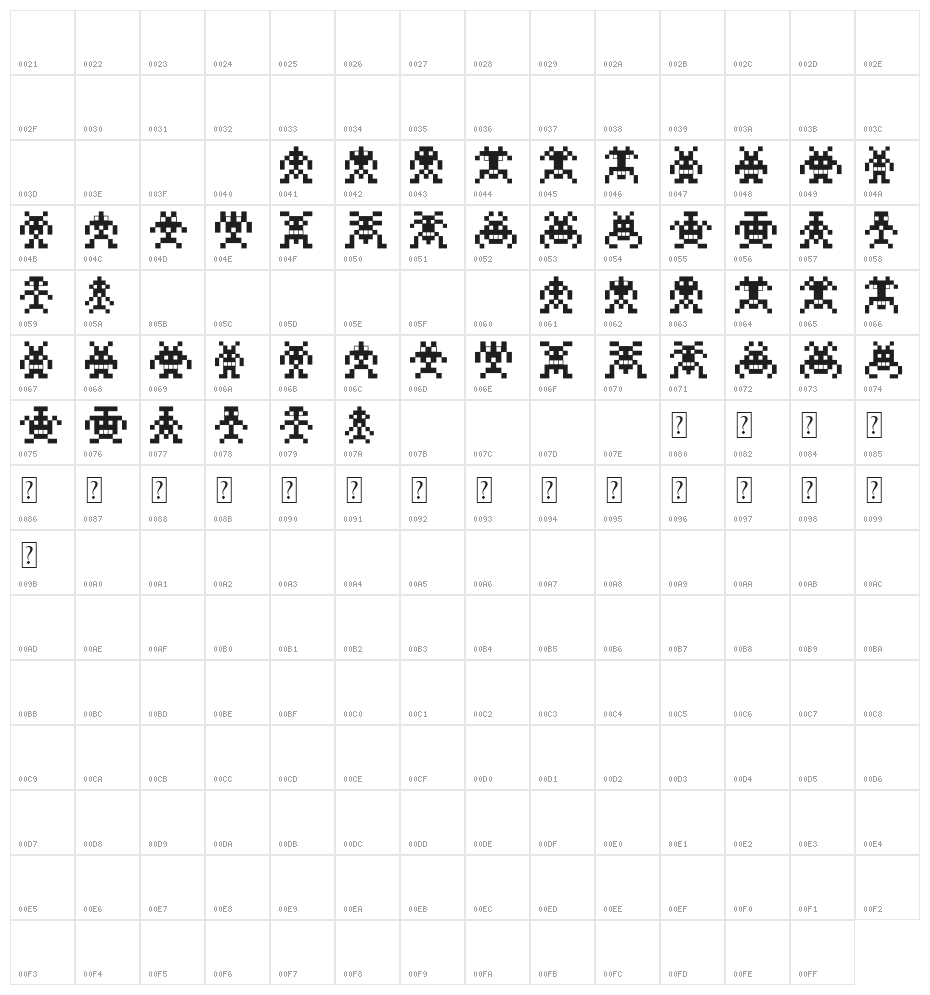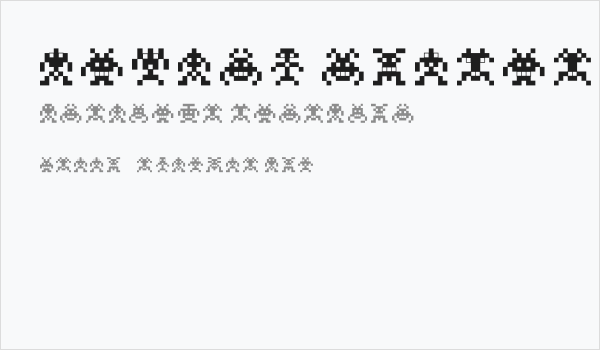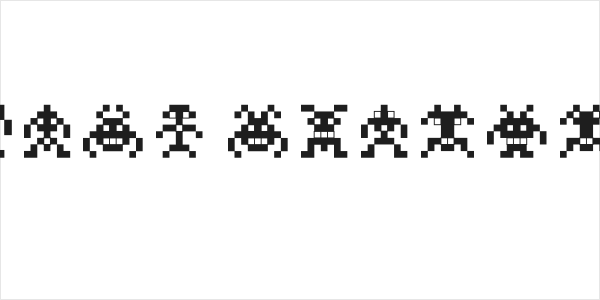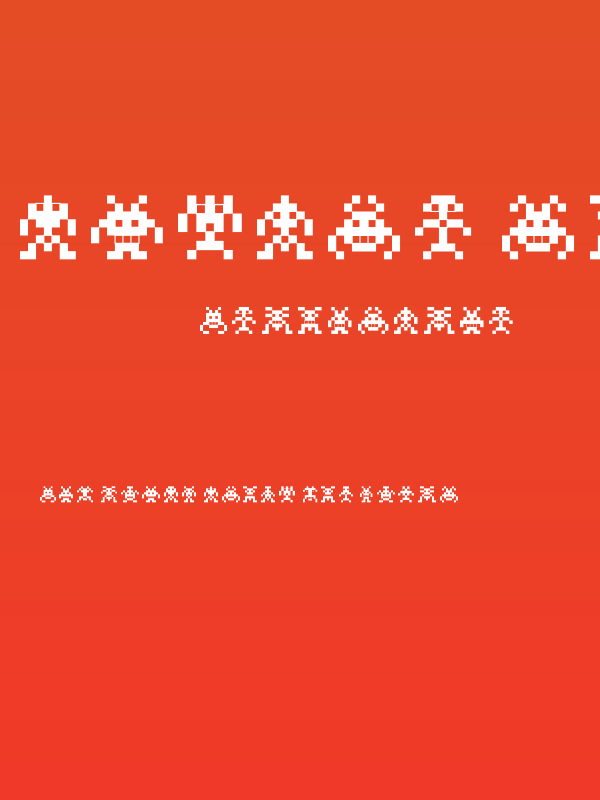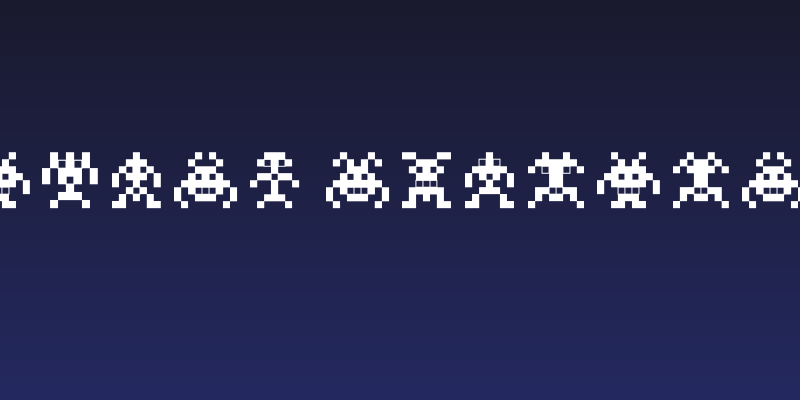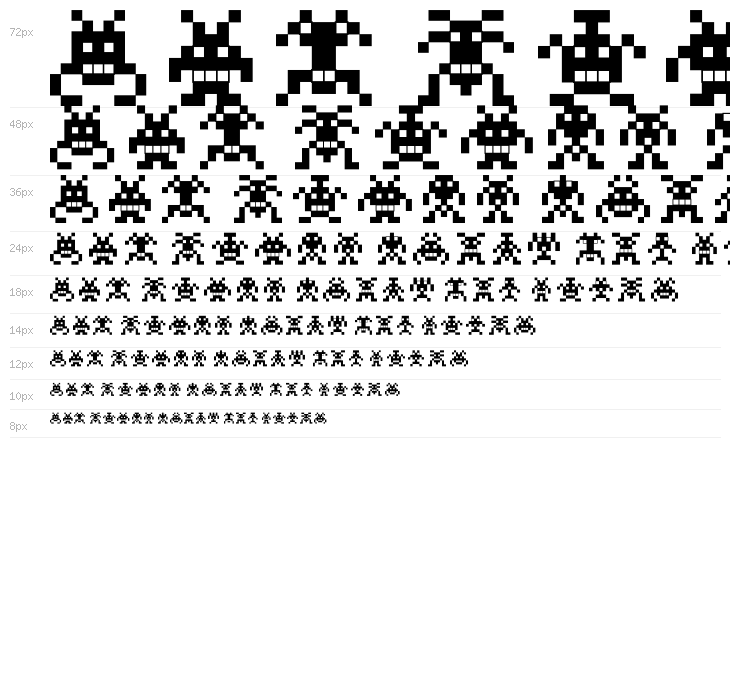
Binary Soldiers Font
Binary Soldiers Description
This font features a unique, pixelated design reminiscent of retro video games, with characters composed of small, square blocks. The style is highly decorative and evokes a sense of nostalgia, making it ideal for projects that aim to capture a vintage digital aesthetic. Each character is distinct, yet they all share a consistent blocky structure, giving the font a cohesive look. The font is not suitable for body text due to its intricate design but works well for headlines or logos that require a bold, eye-catching appearance.
| Proposed Projects | Ideal for video game designs, retro-themed posters, digital art projects, and nostalgic branding. |